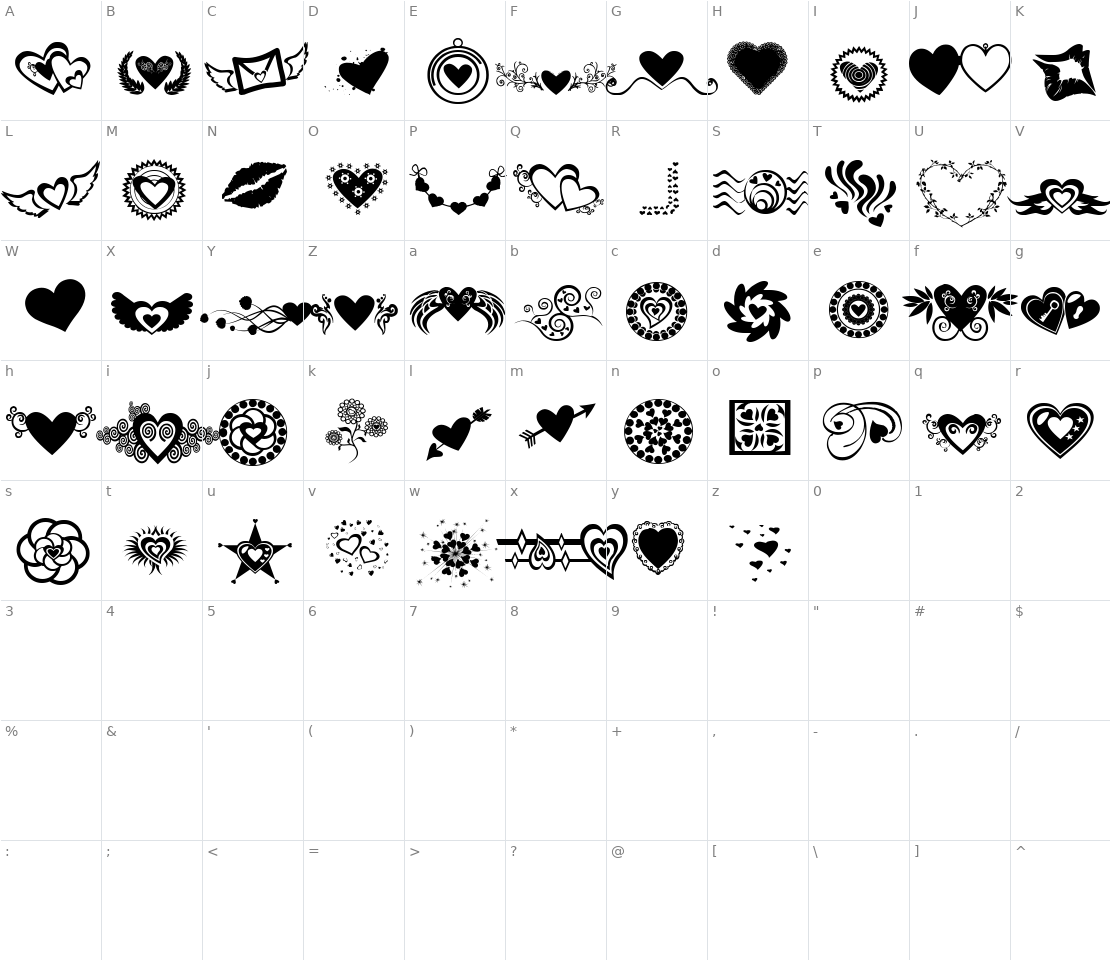
Sexy Rexy Smitten
by PIP-Type
Sexy Rexy Smitten is a dingbat font from PIP-Type filled with hearts, love symbols, and romantic ornamental flourishes. It's strictly decorative, designed for Valentine's Day cards, wedding stationery, and similar projects where you need a quick set of lovey-dovey embellishments without drawing them from scratch.